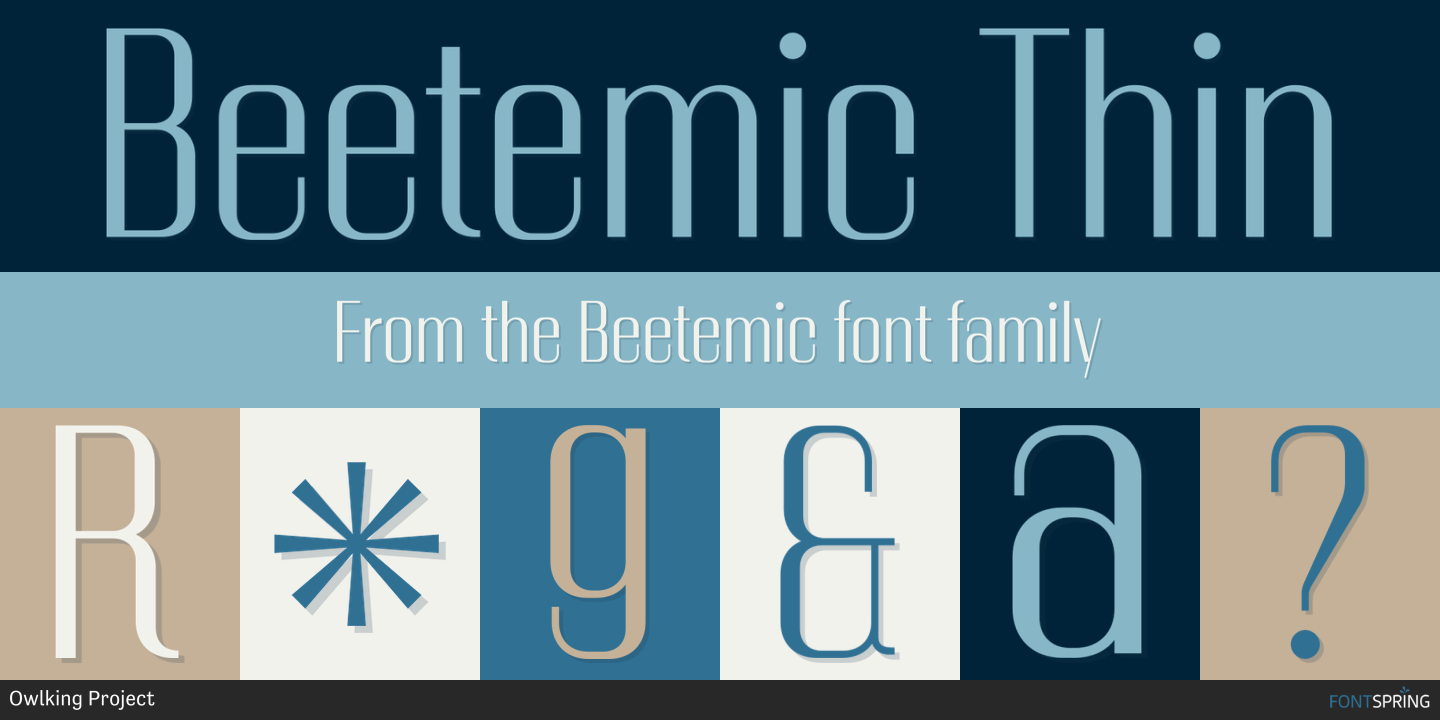
Beetemic
Beetemic is a display sans font family. This typeface has nine styles and was published by Owlking Project.
Beetemic is a font that has a modern style but is very adaptable to retro styles, this font carries 9 weight and is accompanied by some beautiful ligatures, Beetemic has very strong contrast, and looks comfortable to read in body text, short sentences also works well too for logos and headlines.